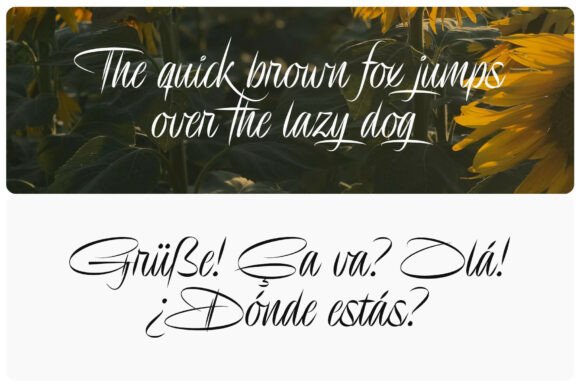
Delion Signature Font
An elegant and expressive signature font, designed with sharp strokes and bold curves. Delion Signature blends a modern handwriting look with a professional artistic touch, making it perfect for branding, personal logos, wedding invitations, product packaging, and other creative projects that require a standout and character-rich appearance.